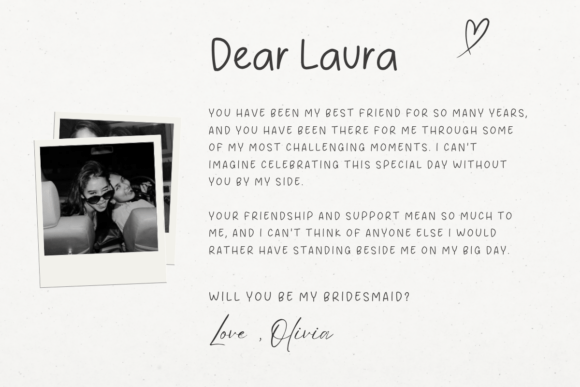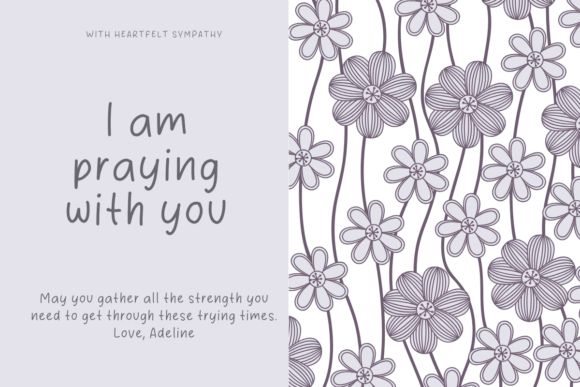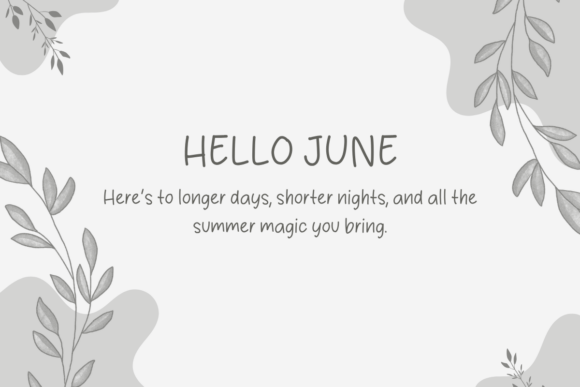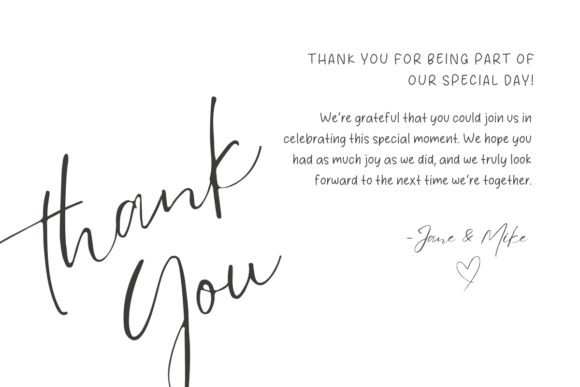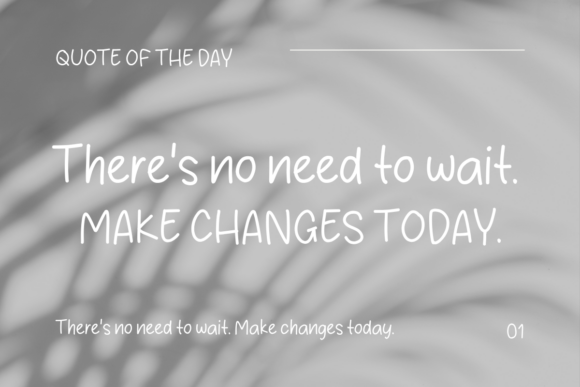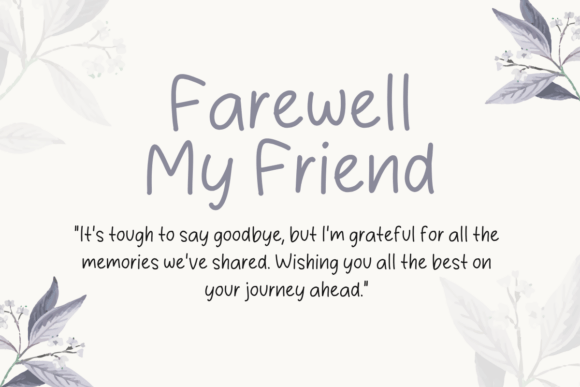
Introducing Doodle Jelly Font: The Perfect Blend of Whimsy and Legibility
In the world of digital design, fonts play a crucial role in conveying the tone and personality of a brand or creative project. For designers and crafters looking to add a touch of warmth, friendliness, and approachability to their work, Doodle Jelly Font is an excellent choice. This charming, tall monoline handwritten font strikes the perfect balance between neatness and playful whimsy, making it an ideal addition to any digital canvas.
The Characteristics of Doodle Jelly Font
Doodle Jelly Font is meticulously crafted to bring a cozy, heartwarming, and organic human touch to any design project. Its friendly curves and clean legibility make it perfect for a wide range of applications, from digital invitations and social media graphics to branding and packaging design. The font’s monoline construction gives it a sleek, modern look that’s both elegant and refined.
What Makes Doodle Jelly Font Special?
- Unique Blend of Whimsy and Legibility: Doodle Jelly Font combines the playfulness of handwritten fonts with the clarity of monoline typography, making it both eye-catching and easy to read.
- Versatility: Whether you’re working on a children’s book, a fashion brand, or a lifestyle blog, Doodle Jelly Font adapts seamlessly to various design contexts.
- Emotional Connection: The font’s warm and inviting appearance helps create an emotional connection with your audience, making your designs more relatable and engaging.
- Easy to Use: Doodle Jelly Font is designed to be user-friendly, with a simple and intuitive design that makes it easy to incorporate into your projects.
Who Can Benefit from Doodle Jelly Font?
Doodle Jelly Font is perfect for a variety of designers and crafters, including:
- Graphic Designers: Looking for a font that adds a personal touch to their designs without compromising on legibility.
- Digital Artists: Seeking to infuse their artwork with a sense of whimsy and playfulness.
- Crafters: Creating handmade products, such as greeting cards, party decorations, or fabric designs, that require a charming and approachable aesthetic.
- Social Media Influencers: Aiming to create engaging and visually appealing content that resonates with their audience.
How to Use Doodle Jelly Font in Your Designs
Incorporating Doodle Jelly Font into your designs is easy and straightforward. Here are a few tips to get you started:
- Pair it with Other Fonts: Combine Doodle Jelly Font with other fonts to create a unique and visually appealing typography.
- Experiment with Colors: Play with different colors and textures to add depth and interest to your designs.
- Use it for Headings and Titles: Take advantage of Doodle Jelly Font’s bold and playful appearance to create eye-catching headings and titles.
- Add Illustrations: Combine Doodle Jelly Font with illustrations or graphics to create a cohesive and engaging design.
Doodle Jelly Font is a versatile and charming addition to any designer’s toolkit. Its unique blend of whimsy and legibility makes it perfect for a wide range of creative projects, from digital designs to handmade crafts. Whether you’re looking to add a touch of warmth and friendliness to your brand or create engaging and visually appealing content, Doodle Jelly Font is an excellent choice. So why not give it a try and see how it can elevate your designs to the next level?